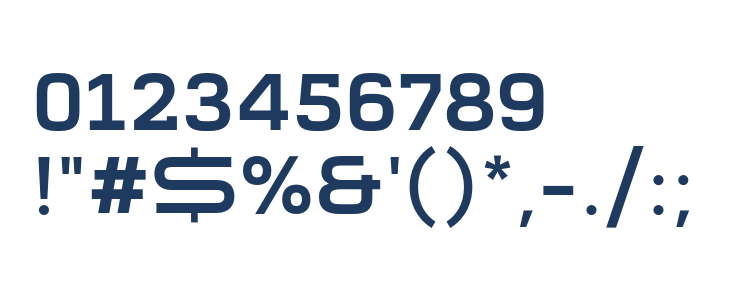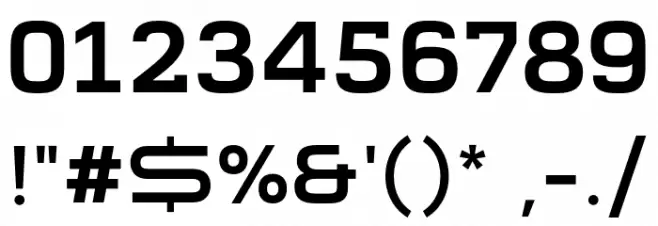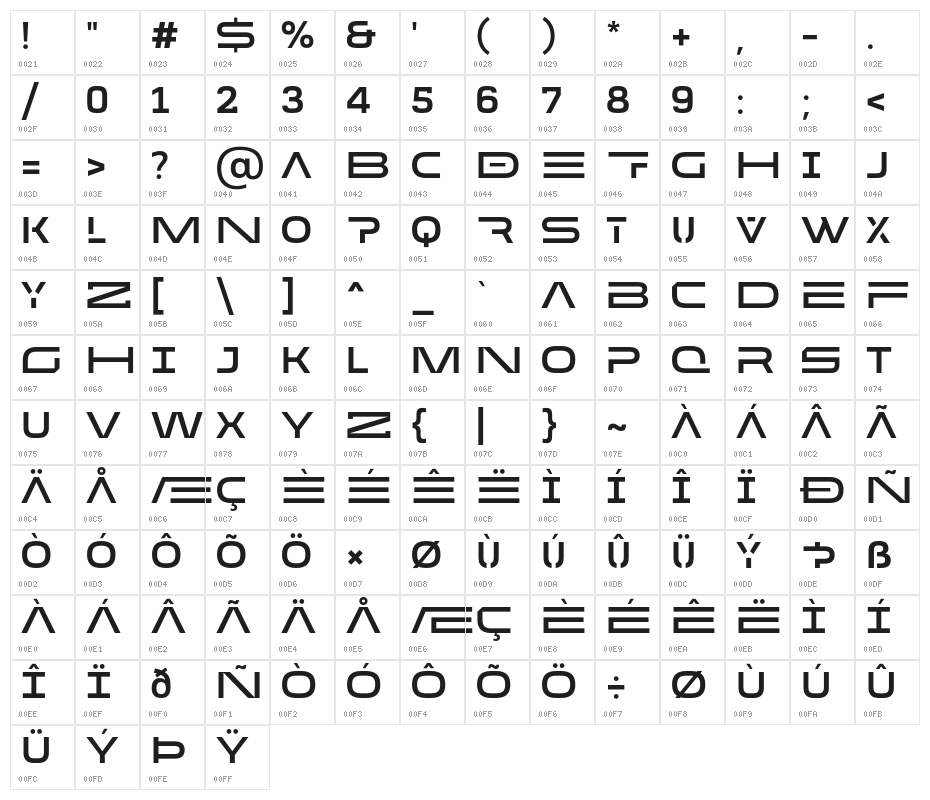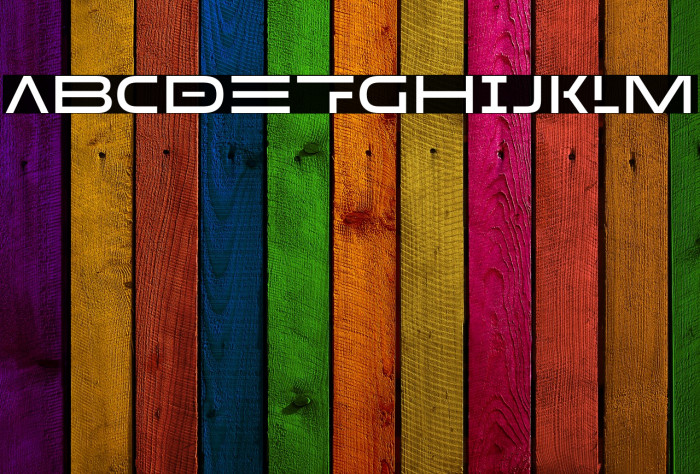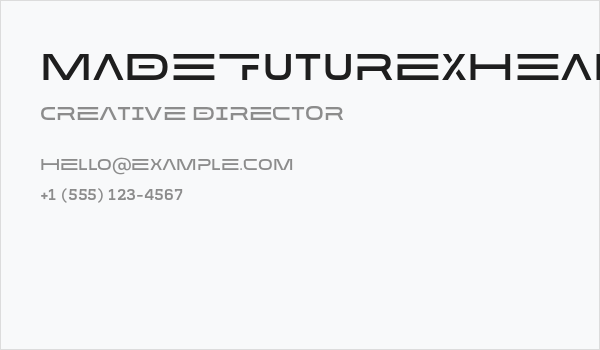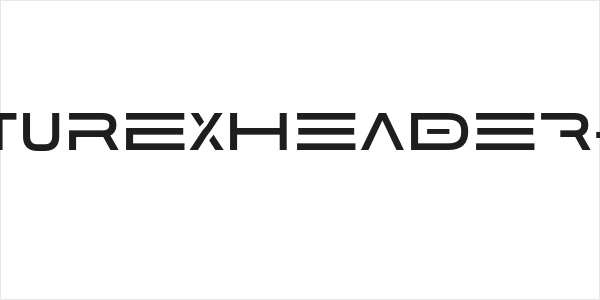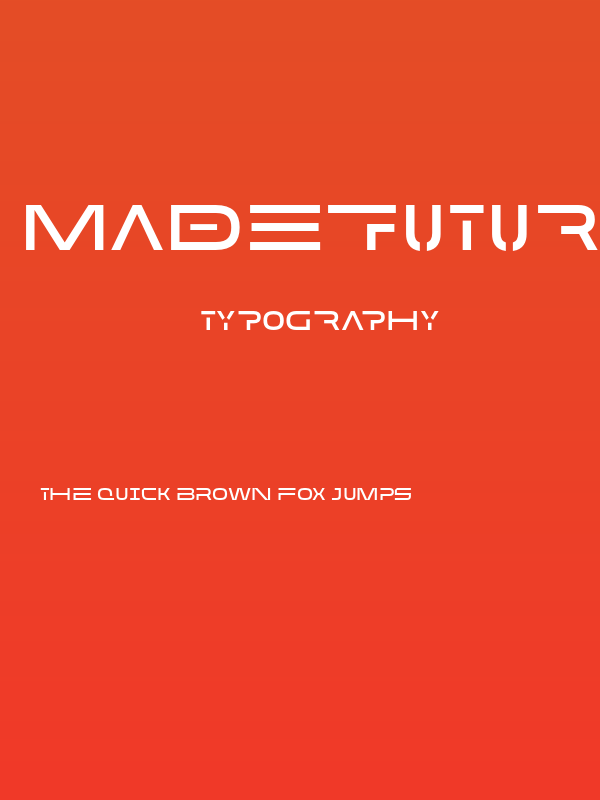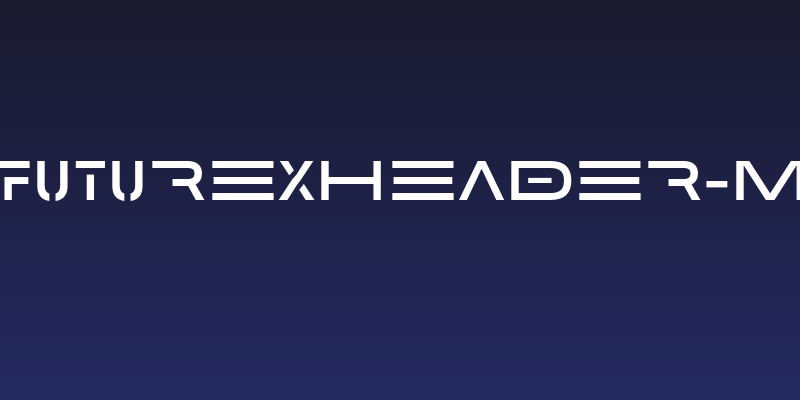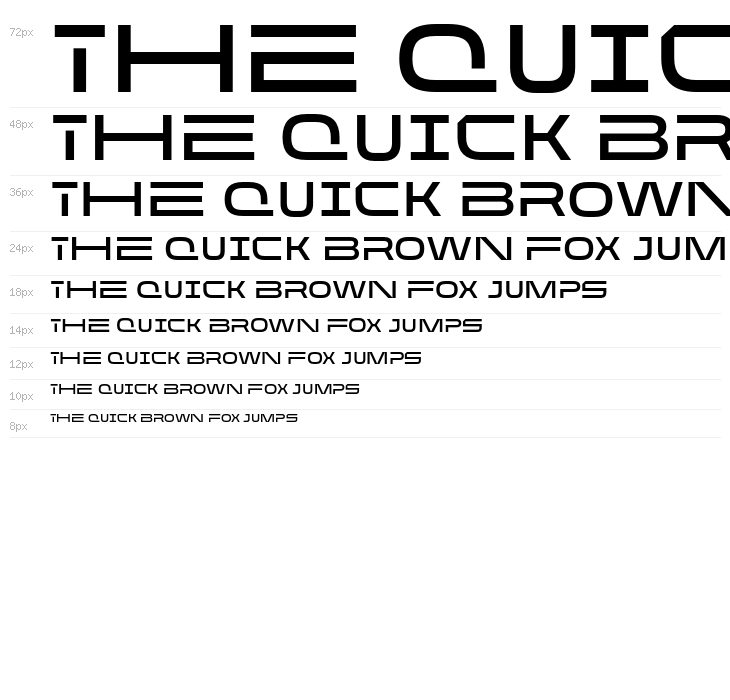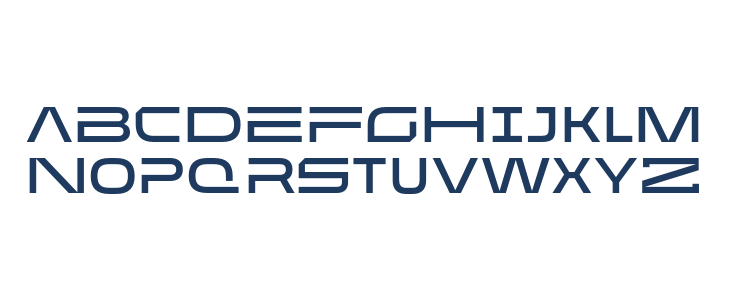
MADEFutureXHEADER-Medium Font
MADEFutureXHEADER-Medium Description
This font features a futuristic and geometric design with a distinct, modern aesthetic. The uppercase letters are bold and angular, with unique cuts and lines that give them a tech-inspired look. The lowercase letters maintain the same geometric style, ensuring consistency across the typeface. Numbers are clear and bold, matching the overall style of the letters. Special characters are designed with the same attention to detail, making them fit seamlessly with the rest of the font. The overall appearance is sleek and contemporary, ideal for projects that require a modern and innovative touch.
| Overall Style | Futuristic, Geometric |
| Proposed Projects | Ideal for technology branding, sci-fi themed projects, modern advertising, and innovative product packaging. |